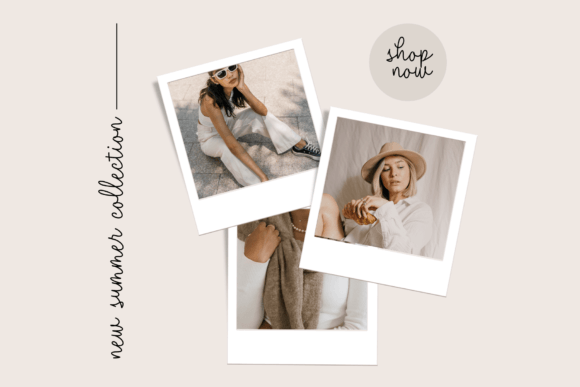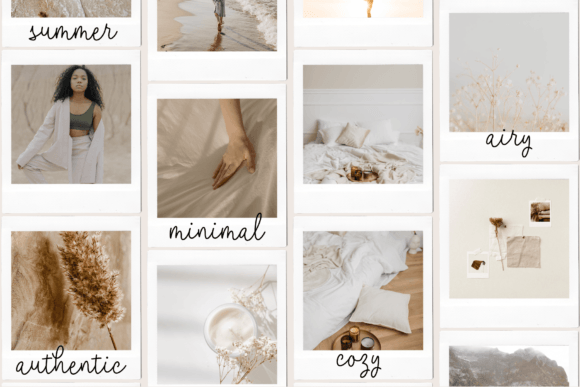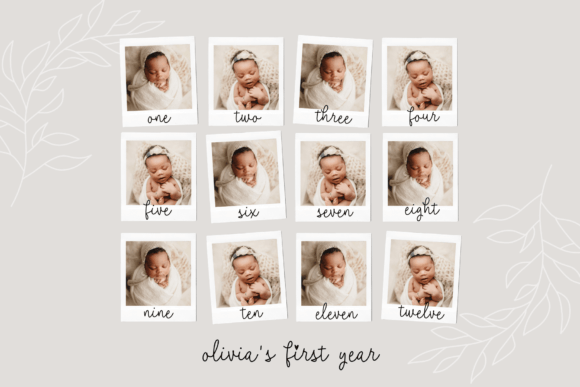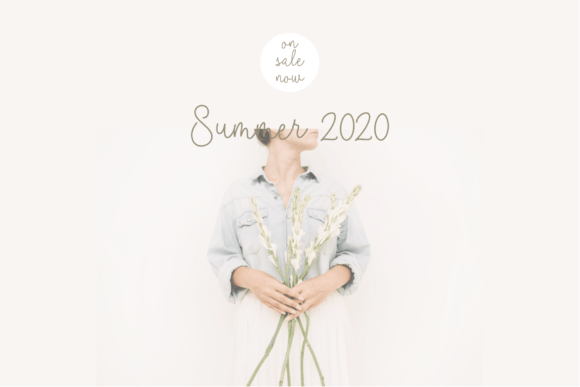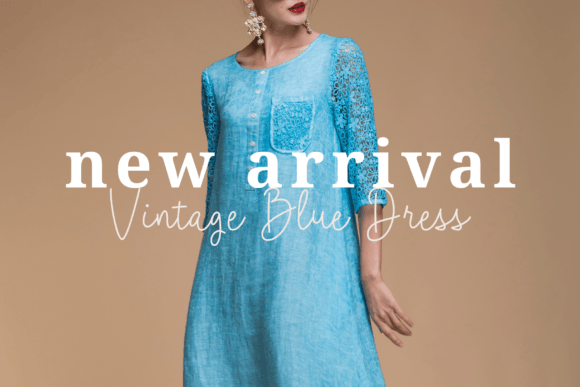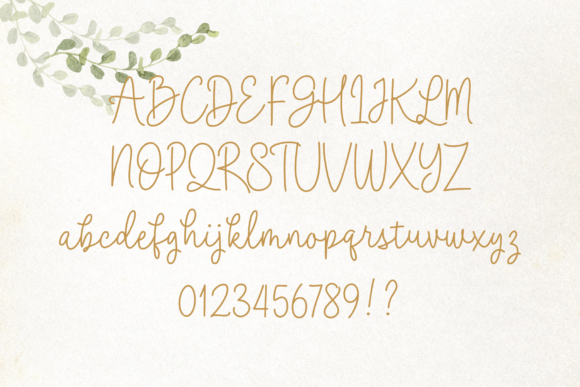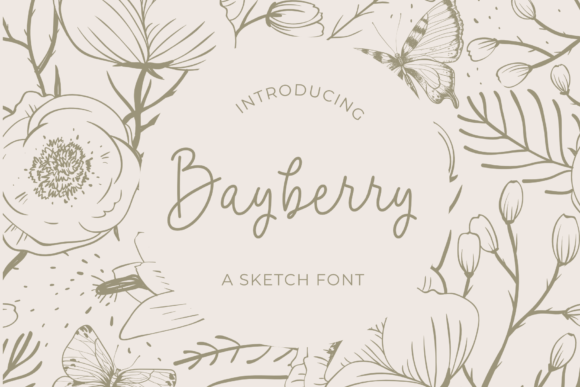
Discover the Charm of Bayberry Font: Elevate Your Designs with a Simple yet Elegant Handwritten Style
In the world of typography, few fonts manage to capture the essence of simplicity and elegance as beautifully as the Bayberry font. This easy-to-read handwritten font has been making waves among designers and crafters alike, and for good reason. Its versatility and charm make it an ideal choice for a wide range of projects, from greeting cards and magazines to headers, wedding invitations, and beyond.
The Allure of Bayberry Font
Bayberry font is characterized by its clean, flowing lines and a distinctly handwritten feel that sets it apart from more formal typography. Its simplicity is part of its appeal, making it highly legible across various mediums. Whether you’re working on a digital project or a print design, Bayberry font brings a touch of warmth and personality that can make your work stand out.
One of the key advantages of Bayberry font is its incredible versatility. It’s a font that can adapt to various design needs, making it a valuable addition to any designer’s toolkit. Here are some of the many ways you can use Bayberry font:
• Greeting Cards: Add a personal touch to your greeting cards with Bayberry font. Its elegant yet casual style is perfect for birthdays, weddings, holidays, and other special occasions.
• Magazines and Newsletters: Use Bayberry font for headings or body text to give your publication a friendly and approachable feel.
• Headers and Titles: Bayberry font can add a beautiful, eye-catching element to your website headers, blog titles, or social media graphics.
• Wedding Invitations: Make your wedding invitations truly special with Bayberry font. Its romantic and elegant feel is sure to set the tone for your big day.
• Stationary Art: Create beautiful stationary art, including letterheads, notebooks, and journals, with Bayberry font.
• Social Media Posts: Stand out on social media with eye-catching posts and graphics featuring Bayberry font.
Why Designers and Crafters Love Bayberry Font
Bayberry font has quickly become a favorite among designers and crafters for several reasons:
• Easy to Read: Despite its handwritten nature, Bayberry font is remarkably easy to read, making it suitable for both digital and print projects.
• Highly Versatile: As mentioned earlier, Bayberry font can be used for a wide range of projects, from formal to casual.
• Unique yet Familiar: Bayberry font has a unique charm but is familiar enough to be comforting. It adds a personal touch to any design without being too over-the-top.
• Time-Saving: With Bayberry font, you can create professional-looking designs in less time. Its elegant style means you don’t have to spend hours searching for the perfect font.
Tips for Using Bayberry Font Effectively
To make the most of Bayberry font, consider the following tips:
• Pair with Complementary Fonts: While Bayberry font is beautiful on its own, pairing it with a complementary font can add depth and interest to your design.
• Play with Sizes and Colors: Don’t be afraid to experiment with different sizes and colors to make your text stand out.
• Use for Headers and Subheadings: Bayberry font is particularly effective for headers and subheadings, adding a touch of elegance to your design.
In conclusion, Bayberry font is a simple yet elegant handwritten font that offers a world of creative possibilities. Its ease of readability, versatility, and charming style make it an excellent choice for designers and crafters looking to add a personal touch to their projects. Whether you’re creating greeting cards, magazines, wedding invitations, or social media posts, Bayberry font is sure to elevate your designs and make them truly memorable.